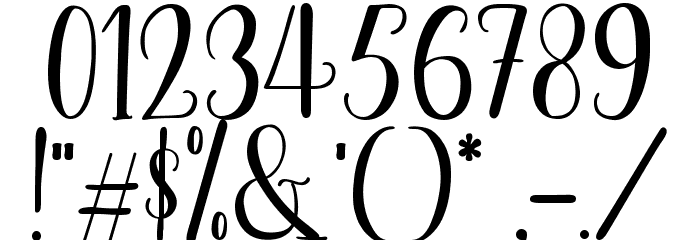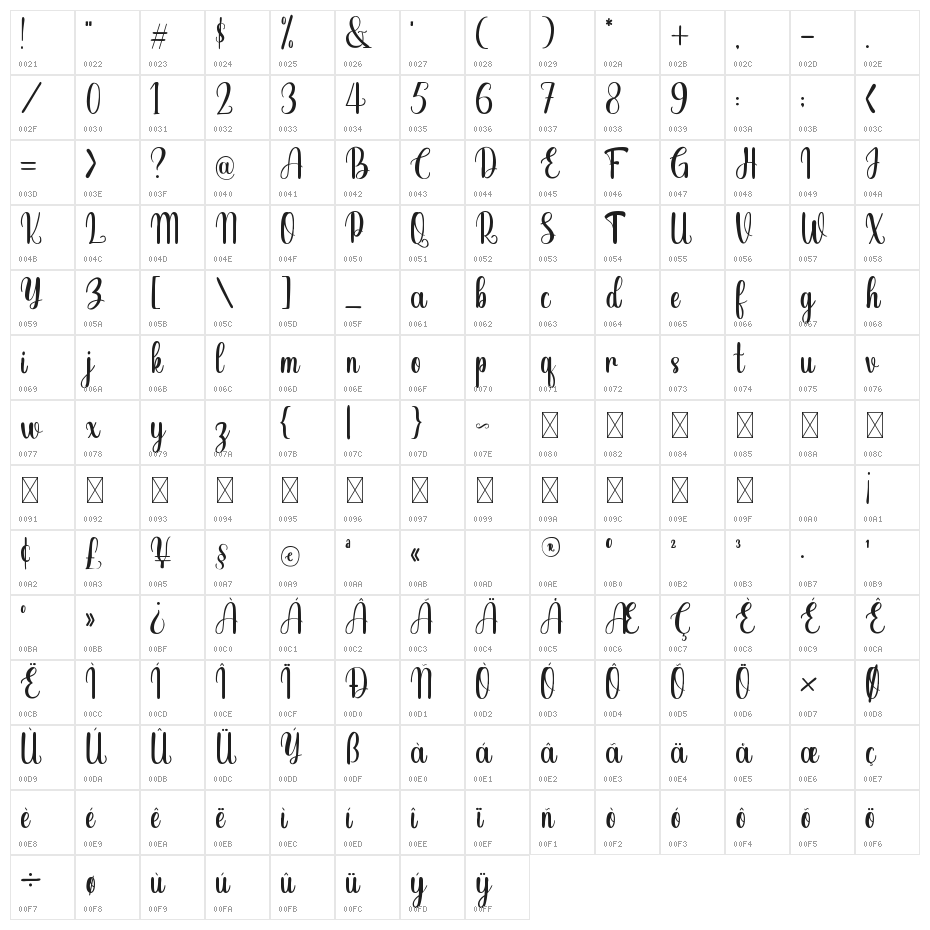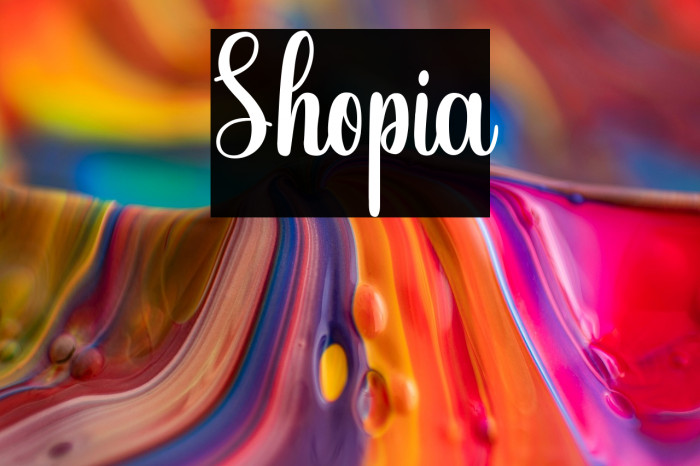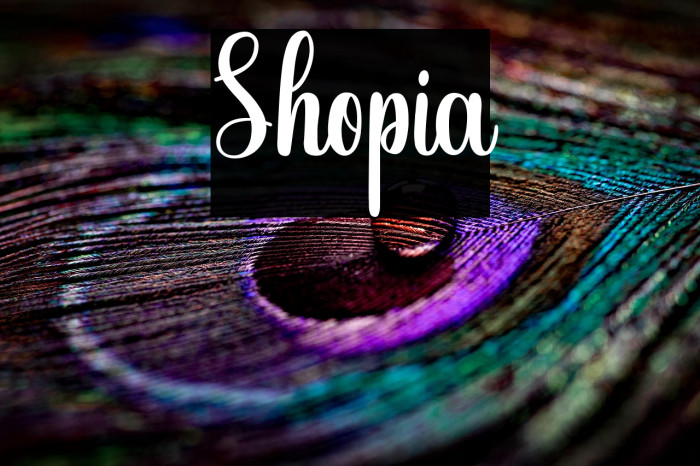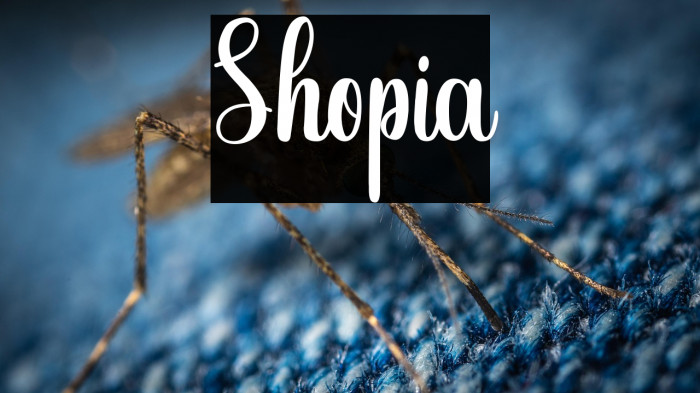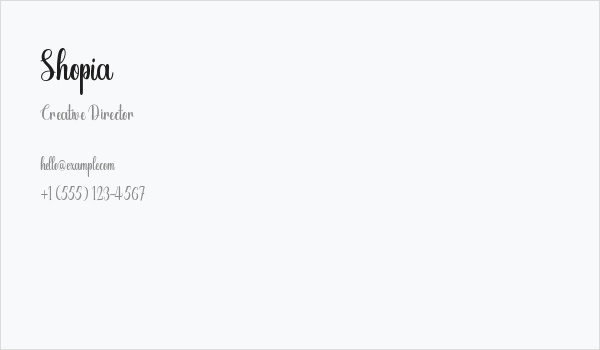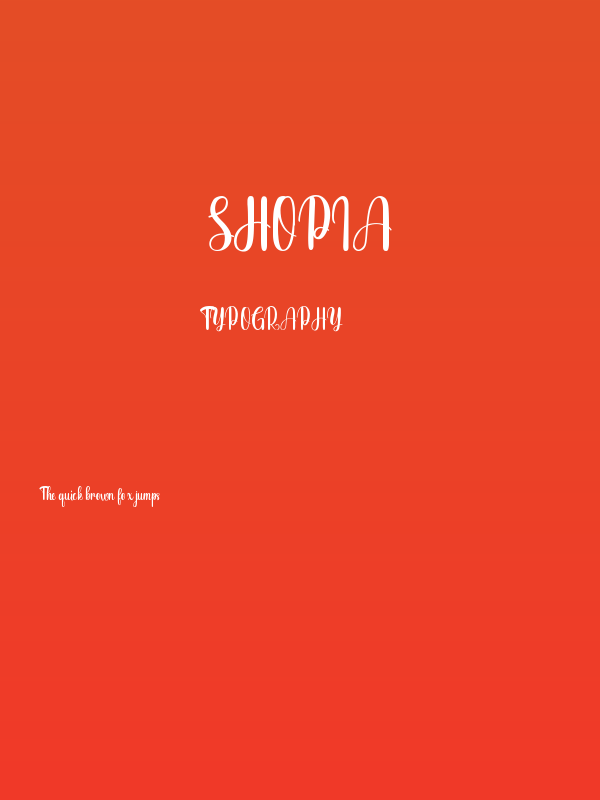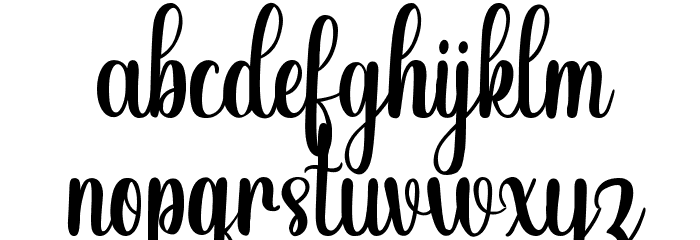
Shopia Font
Shopia Description
This font features a playful and elegant script style with a flowing, cursive design. The uppercase letters are bold and ornate, with distinctive loops and swirls that add a touch of sophistication. The lowercase letters maintain a consistent flow, complementing the uppercase with their smooth curves and connected strokes. Numbers and special characters are designed with the same attention to detail, ensuring a cohesive look across all characters. The overall appearance is both stylish and approachable, making it suitable for a variety of creative projects.